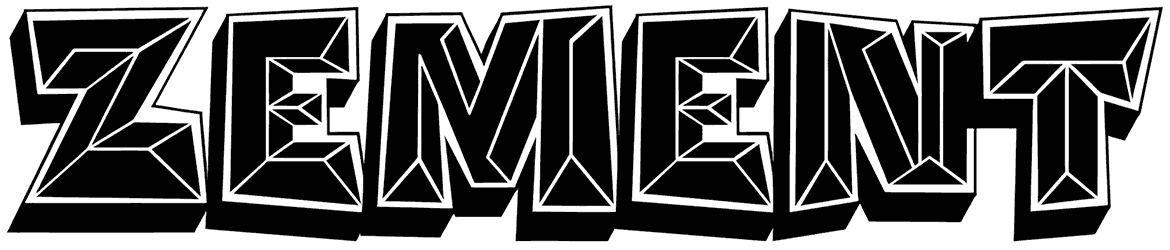
Zement Font
You can get a lot of attention if you create a net mood for your design, such as what Zement can do. As a diamond font with a deformed, crystal-like outward shape, it will give your design a dramatic vibe. Howbeit there is no lowercase, numbers, or punctuation with its pattern, but Zement remains an attractive option for logos, mastheads, covers, or much more.